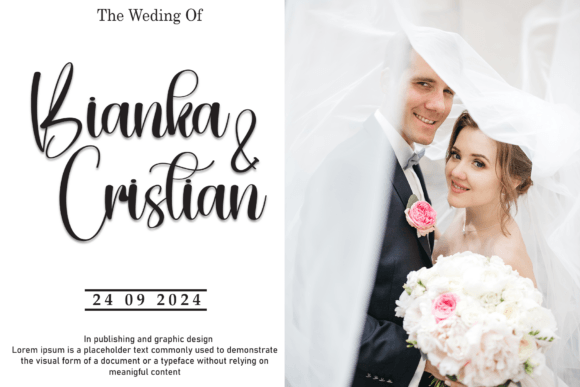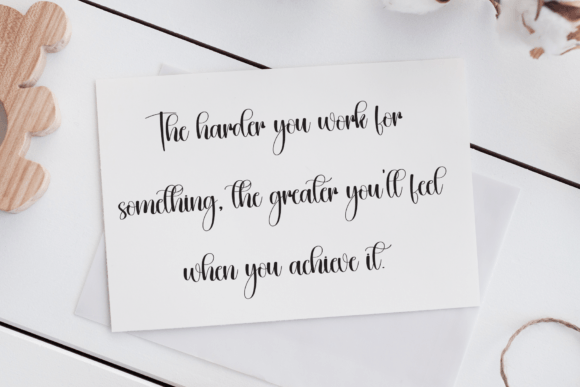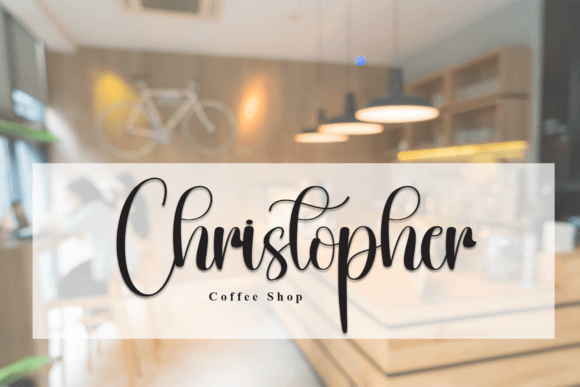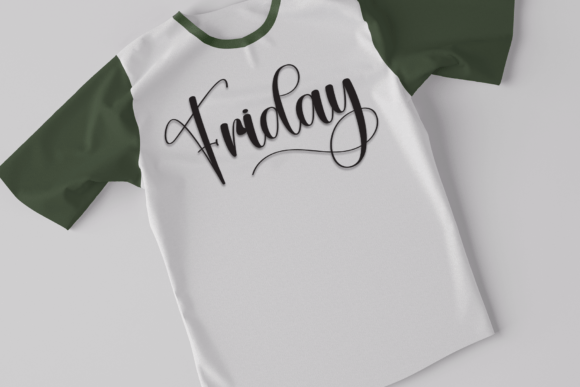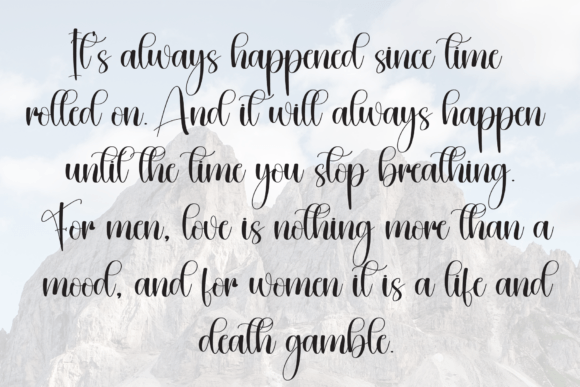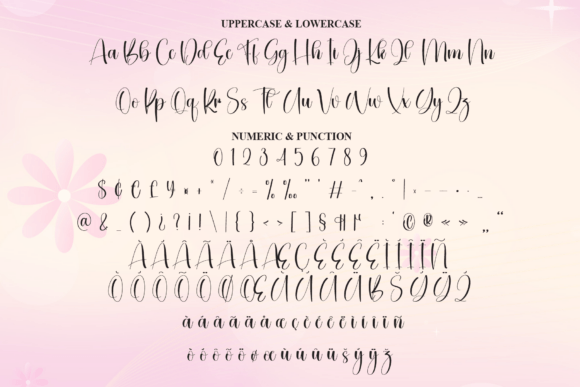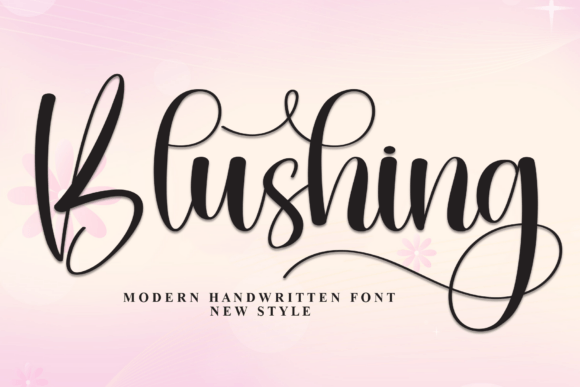
Introducing Blushing Font: The Perfect Blend of Bold and Elegant
Are you tired of using the same old fonts in your designs? Look no further! Blushing Font is a beautiful handwritten font that combines bold and thin lines, giving it a unique and stylish look. This font is perfect for designers and crafters who want to add a personal touch to their work. In this article, we’ll dive into the features and benefits of Blushing Font, and explore how you can use it to elevate your designs.
What is Blushing Font?
Blushing Font is a handwritten font that blends bold and thin lines, creating a stunning visual effect. The font has a personal and expressive feel, making it perfect for designs that require a touch of elegance. Whether you’re working on a logo, branding project, or social media graphics, Blushing Font is sure to make your design stand out.
Unique Features of Blushing Font
So, what makes Blushing Font so special? Here are some of its unique features:
- Bold and Thin Lines: Blushing Font combines bold and thin lines, creating a beautiful contrast that adds depth and visual interest to your designs.
- Handwritten Style: The font has a handwritten style that gives it a personal and expressive feel. It’s perfect for designs that require a touch of elegance and sophistication.
- Versatile: Blushing Font is versatile and can be used for a variety of design projects, from logos and branding to social media graphics and more.
Benefits of Using Blushing Font
So, why should you use Blushing Font in your designs? Here are some benefits:
- Adds a Personal Touch: Blushing Font adds a personal touch to your designs, making them more relatable and engaging.
- Creates Visual Interest: The bold and thin lines of Blushing Font create a stunning visual effect that grabs attention and keeps it.
- Elegant and Sophisticated: The font has an elegant and sophisticated feel, making it perfect for designs that require a touch of luxury.
How to Use Blushing Font in Your Designs
Using Blushing Font in your designs is easy! Here are some tips:
- Pair it with Other Fonts: Pair Blushing Font with other fonts to create a unique and interesting visual effect.
- Use it for Headings: Use Blushing Font for headings and titles to add a touch of elegance and sophistication.
- Experiment with Colors: Experiment with different colors to find the perfect combination that works with your design.
Who Can Benefit from Blushing Font?
Blushing Font is perfect for designers and crafters who want to add a personal touch to their work. Here are some professionals who can benefit from using Blushing Font:
- Graphic Designers: Graphic designers can use Blushing Font to create stunning visual effects in their designs.
- Branding Experts: Branding experts can use Blushing Font to create elegant and sophisticated branding materials.
- Social Media Managers: Social media managers can use Blushing Font to create engaging and eye-catching social media graphics.
- Crafters: Crafters can use Blushing Font to add a personal touch to their craft projects, such as handmade cards and gift tags.
In conclusion, Blushing Font is a beautiful handwritten font that blends bold and thin lines, giving it a unique and stylish look. It’s perfect for designers and crafters who want to add a personal touch to their work. With its elegant and sophisticated feel, Blushing Font is sure to elevate your designs and make them stand out. So why wait? Try Blushing Font today and see the difference it can make in your designs!